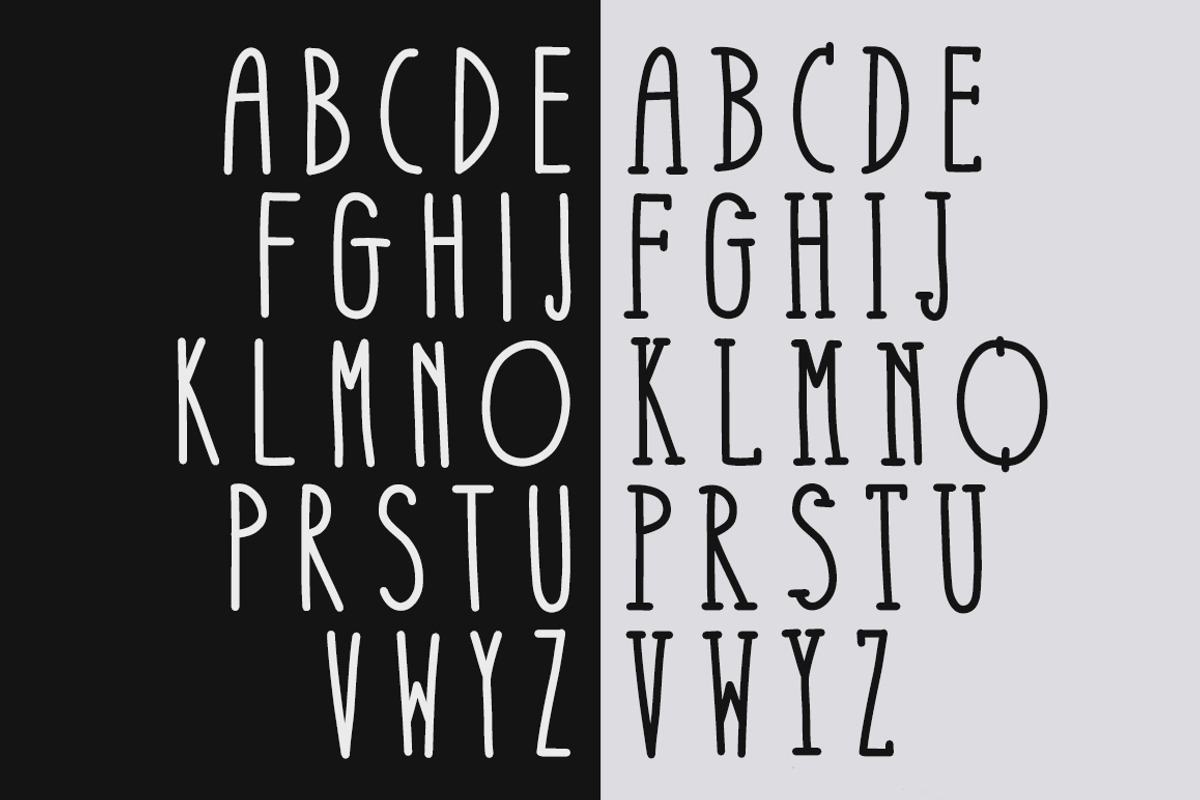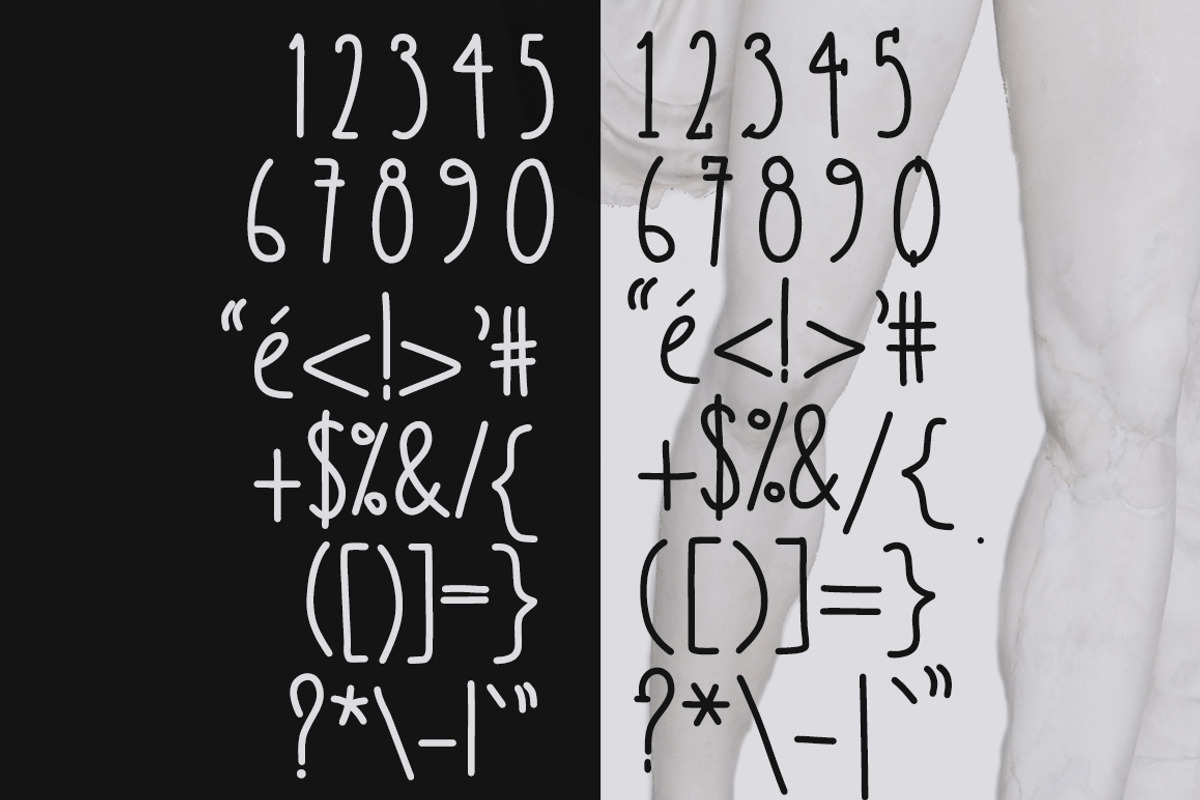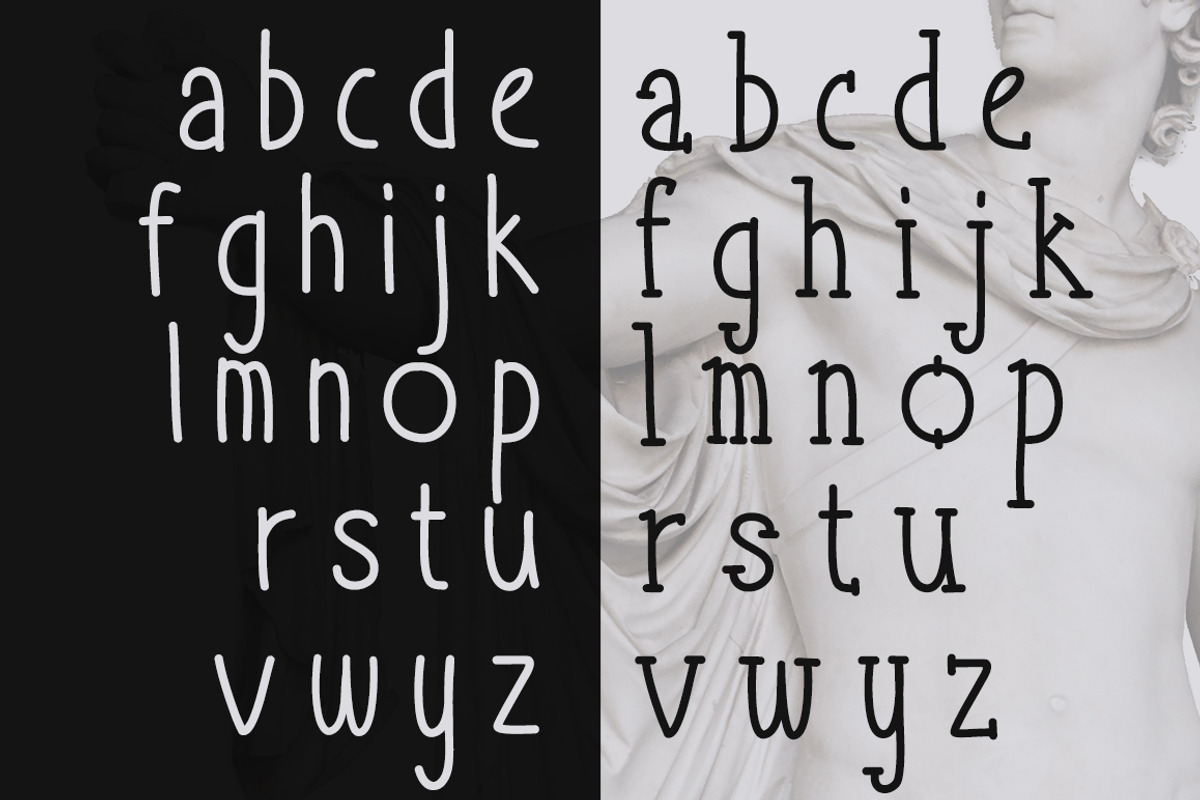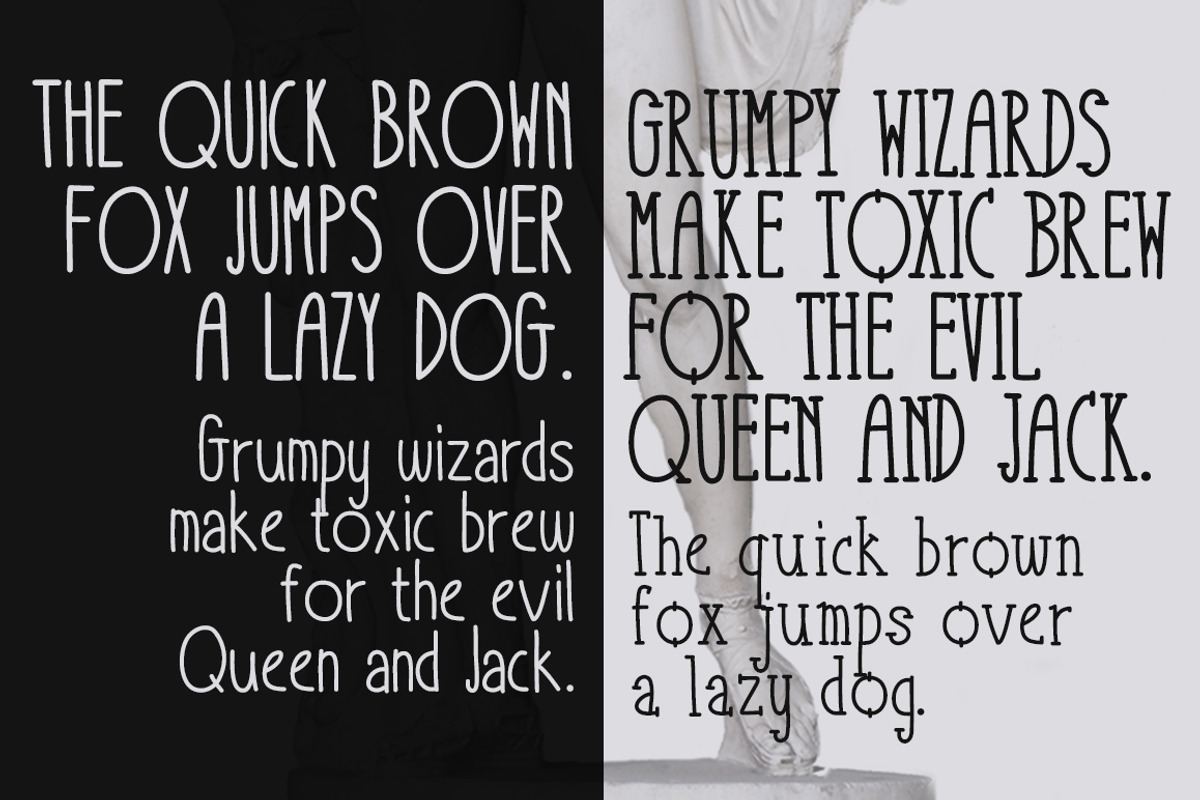
Take It or Leave It - 3 font family
Take It or Leave It - 3 font family by Idil Keysan is a font selected for branding, posters, packaging, typography.
- Take It or Leave It is a handwritten typeface that comes in both uppercase and lowercase styles.
Why Take It or Leave It - 3 font family is worth a look
Take It or Leave It - 3 font family by Idil Keysan fits naturally into Branding, posters, packaging, typography.